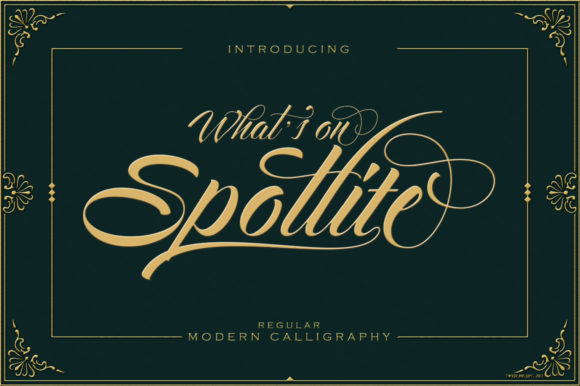
Unlock the enchanting allure of Spotlite Font, a mesmerizing script that will captivate your senses. Crafted by the imaginative minds at sapre.studio, this exquisite typeface exudes an ethereal charm that will leave you spellbound. Its graceful curves and exquisite details evoke a sense of timeless elegance, inviting you to create designs that shimmer with sophistication.
Indulge in the boundless possibilities that Spotlite Font offers. Its captivating form is a perfect fit for branding, wedding invitations, social media content, and any project that yearns for a touch of magic. Let the captivating allure of Spotlite Font ignite your creativity, transforming your designs into works of art that inspire and enchant.
With Spotlite Font at your fingertips, you'll discover a world of creative opportunities. Its enchanting style will effortlessly elevate your designs, adding a touch of grace and timeless beauty. Whether you seek to evoke a sense of romance, sophistication, or whimsical enchantment, Spotlite Font is the perfect choice. Experience the transformative power of this exquisite script and let your designs dance with an ethereal magic.